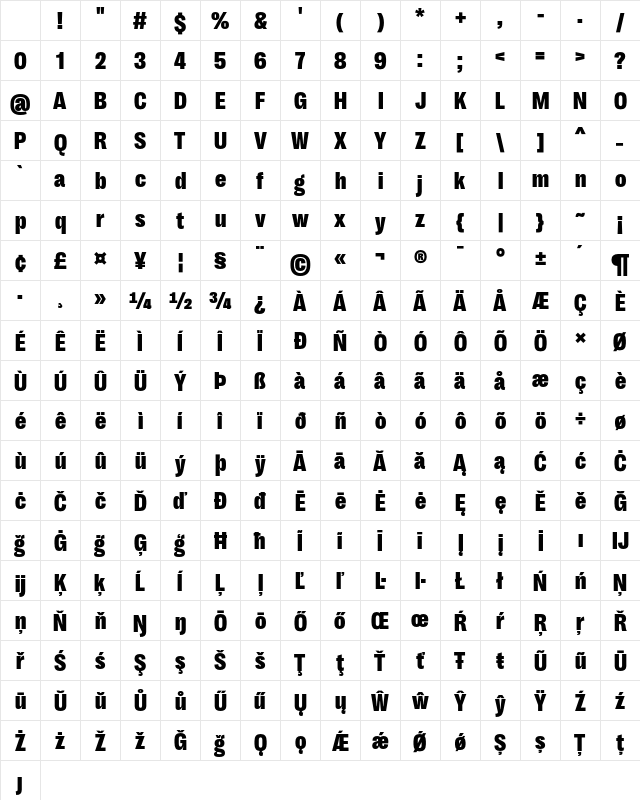
Complete Right Grotesk Compact Black Regular glyph index. Displaying only characters natively supported by Right Grotesk Compact Black Regular font.
Right Grotesk Compact Black takes a clean, functional approach - its unadorned letterforms prioritise legibility and work reliably across screen and print environments. Its narrow stance lets it pack a punch even in space-constrained designs.
Font Pairing: Works well alongside a characterful serif or display font that can carry the expressive load while Right Grotesk Compact Black handles the functional copy.
Pro Tip: Use Right Grotesk Compact Black tightly set in headlines and banners - its condensed proportions make it ideal for maximum impact in minimum horizontal space.